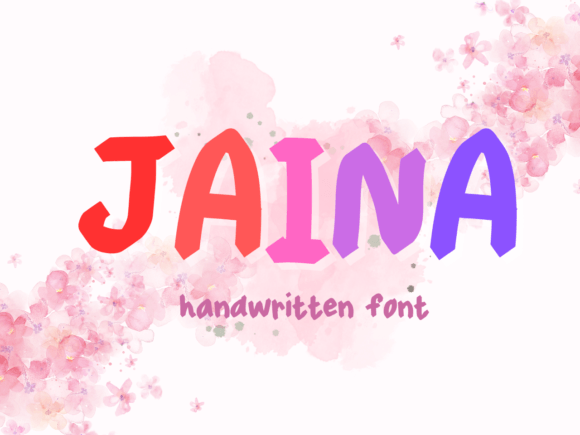
Adorn your designs with the enigmatic charm of Jaina Font, a mesmerizing script font family that captures the essence of handwritten artistry. Born from the creative vision of Pukka De, this font collection draws inspiration from the fluidity and expressiveness of hand lettering. Prepare to be captivated by its unique characters, each meticulously crafted to exude a sense of individuality and charm.
With Jaina Font, transform your words into captivating expressions of art. Its gracefully flowing lines and organic curves will add a touch of elegance and sophistication to logos, branding, invitations, and more. Let your imagination soar as you explore the limitless possibilities offered by this exceptional font.
Unleash the boundless creativity of Jaina Font and turn your design dreams into reality. Its versatile nature lends itself effortlessly to a wide range of projects, from eye-catching social media graphics to heartfelt personal letters. Make a bold statement with posters that command attention or add a touch of whimsy to your website with this captivating font.
Experience the thrill of personalized excellence with Jaina Font. Its meticulously designed characters shine with a unique personality, ensuring that your designs stand out from the ordinary. Elevate your creative endeavors to new heights and leave a lasting impression on your audience. Embrace the allure of Jaina Font and embark on a journey of artistic exploration.